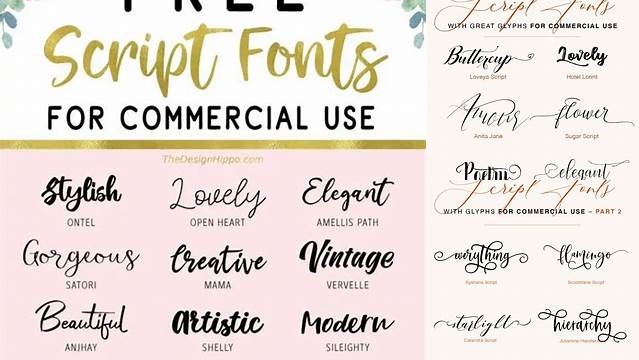
Free Modern Script Fonts For Commercial Use
Hey guys! Are you on the hunt for some elegant and stylish modern script fonts that you can use for your commercial projects without spending a dime? You've come to the right place! Finding the perfect font can be a game-changer for your designs, whether you're working on branding, websites, or marketing materials. Modern script fonts bring a touch of sophistication and personality that can really make your work stand out. In this article, we'll dive deep into the world of free modern script fonts for commercial use, exploring a ton of options and giving you the lowdown on where to find them and how to use them effectively. Let's get started!
1. What are Modern Script Fonts?
So, what exactly are modern script fonts? Well, these fonts are designed to mimic the flowing, handwritten style of calligraphy. They often feature elegant curves, loops, and connecting strokes that give them a personal and stylish feel. Modern script fonts differ from traditional scripts by incorporating contemporary design elements, making them versatile for a wide range of projects. They can be used to add a touch of class to everything from logos and wedding invitations to social media graphics and website headers. Understanding the characteristics of modern script fonts is crucial for choosing the right one for your specific needs.
2. Why Use Modern Script Fonts for Commercial Projects?
Why should you consider using modern script fonts for your commercial projects? The answer is simple: they add a unique and personal touch that can help your brand stand out. Modern script fonts evoke feelings of elegance, creativity, and sophistication, which can be incredibly valuable in attracting and engaging your target audience. Whether you're designing a logo, creating marketing materials, or sprucing up your website, these fonts can elevate your designs and give them a polished, professional look. Using modern script fonts effectively can significantly enhance your brand’s visual identity.
3. Top Websites to Find Free Modern Script Fonts for Commercial Use
Alright, let's get to the good stuff! Where can you find these amazing fonts without breaking the bank? There are several fantastic websites that offer a wide variety of free modern script fonts for commercial use. Some of the top platforms include Google Fonts, DaFont, Font Squirrel, and Creative Fabrica's Freebies section. Each of these sites has its own unique collection, so it's worth exploring them all to find the perfect font for your project. We'll delve into each of these sites in more detail, highlighting their strengths and how to navigate them effectively. So, let's explore these platforms to find the modern script fonts that are perfect for you.
4. Google Fonts: A Treasure Trove of Free Script Fonts
Google Fonts is a true treasure trove when it comes to free fonts, and they have a fantastic selection of modern script fonts. The best part? All fonts on Google Fonts are open-source and free for commercial use. This means you can use them for any project, big or small, without worrying about licensing fees. Some popular modern script fonts on Google Fonts include Pacifico, Dancing Script, and Great Vibes. We'll explore these fonts and others in more detail, discussing their unique characteristics and best use cases. Google Fonts makes it easy to browse, preview, and download fonts, making it a go-to resource for designers.
5. DaFont: A Diverse Collection of Free Script Fonts
6. Font Squirrel: High-Quality Free Fonts for Designers
Font Squirrel is known for its curated collection of high-quality, free fonts, including a variety of modern script fonts. All fonts on Font Squirrel are available for commercial use, which makes it a reliable and trustworthy source. The site also offers a handy Font Identifier tool, which can help you identify a font you've seen in an image. Font Squirrel's commitment to quality and its focus on commercial-use fonts make it a favorite among designers. You can find some truly exceptional modern script fonts here, perfect for adding a touch of elegance to your projects.
7. Creative Fabrica Freebies: Premium Fonts Without the Price Tag
Creative Fabrica is a popular platform for designers, offering a wide range of fonts, graphics, and other design resources. They also have a fantastic Freebies section where they regularly offer premium fonts for free for a limited time. This includes some stunning modern script fonts that you can use in your commercial projects. Be sure to check their Freebies section regularly to snag some amazing fonts before they’re gone. Creative Fabrica’s Freebies section is a great way to access high-quality modern script fonts without spending any money.
8. Understanding Font Licensing for Commercial Use
Okay, this is super important, guys! Before you start using any font in your commercial projects, you need to understand font licensing. Font licenses dictate how you can legally use a font, and they can vary widely. Some fonts are completely free for commercial use, while others may have restrictions, such as limitations on the number of users or the types of projects you can use them in. Always, always check the license information before using a font to avoid any legal issues down the road. Understanding font licensing ensures that you can use modern script fonts in your projects with confidence and peace of mind.